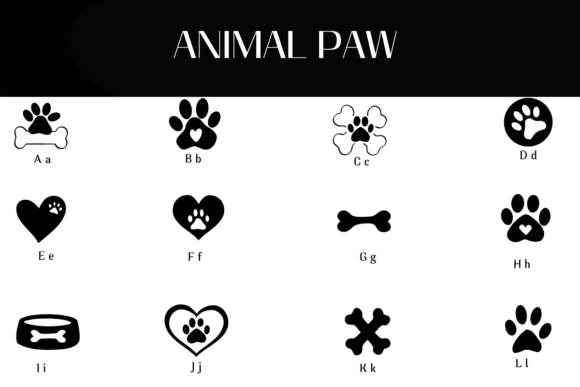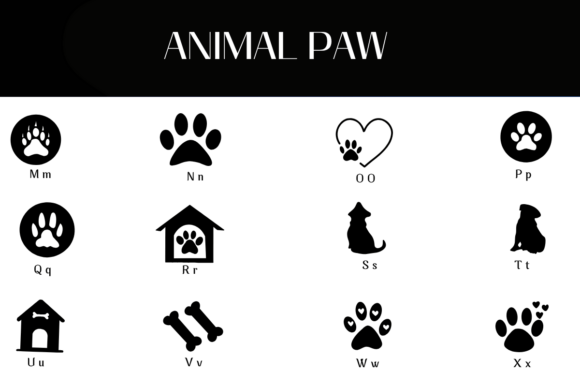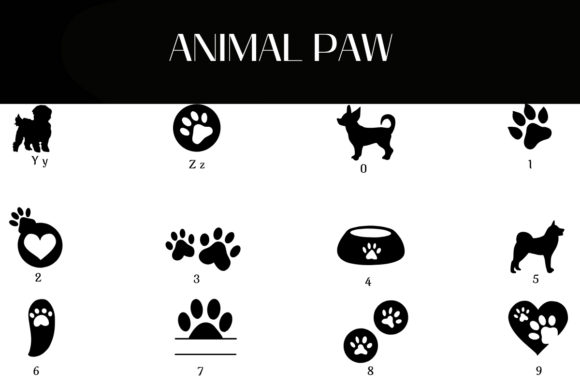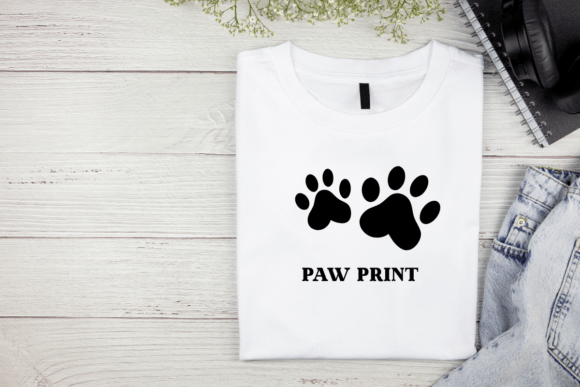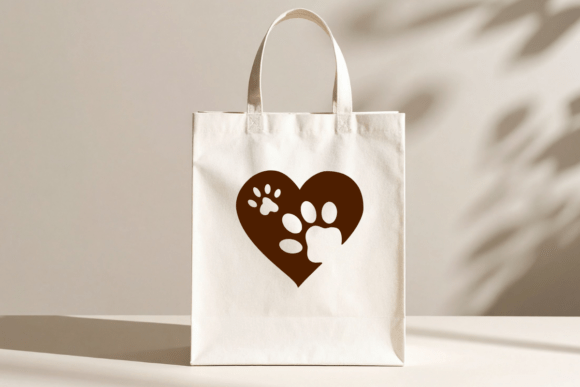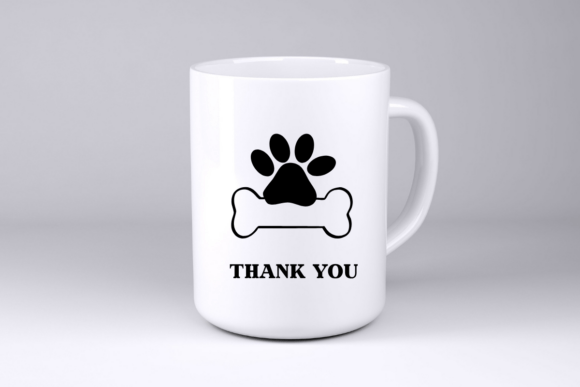
Unleashing Creativity with Animal Paw Font
Have you ever been brainstorming ideas for a project and suddenly, a cute illustration of a cat pops up in your mind? It’s moments like these that spark our creativity and make us want to bring our imagination to life. For designers, it’s not just about having ideas, but also about finding the right tools to make them happen. That’s where the Animal Paw Font comes in – a delightful dingbats font that adds a playful touch to any design.
This charming font is designed to help you add a whimsical element to your work, whether it’s a logo, a greeting card, or a social media post. With its cute animal paw prints, you’ll be able to convey a sense of fun and playfulness that’s sure to capture your audience’s attention. As a designer, you know how valuable it is to have a versatile font that can add a personal touch to your creations. The Animal Paw Font is a must-have for anyone looking to unleash their creativity and bring a smile to their audience’s faces.
Key Features of Animal Paw Font
- Unique Characteristics: The Animal Paw Font features a playful, handwritten style with bold lines and rounded edges, making it perfect for children’s books, pet-related designs, and whimsical illustrations.
Designer Review: Animal Paw Font
As a designer, I’m always on the lookout for unique and engaging fonts to add some personality to my projects. The Animal Paw Font is definitely one of the more interesting fonts I’ve come across. Here’s my honest review.
- The font’s playful and whimsical feel makes it perfect for children’s books, pet-related projects, or any design that needs a lighthearted touch.
- The font’s bold lines and rounded edges give it a fun, hand-drawn feel that’s hard to replicate with more traditional fonts.
- The font may be too playful for more formal or professional projects, where a more serious tone is required.
- The font’s uniqueness may also make it difficult to pair with other fonts, as it can be quite attention-grabbing.
- The font may not be suitable for smaller text sizes, as the bold lines and rounded edges can make it difficult to read.
Overall, I think the Animal Paw Font is a great addition to any designer’s toolkit. While it may have some limitations, its unique personality and high level of customization make it a great choice for the right projects. Just be sure to use it sparingly and in context, as it can be quite overpowering if not used carefully.
Animal Paw Font is perfect for:
- Children’s book illustrations and designs.
- Animal-themed parties and events.
- Wildlife conservation and education materials.
- Fun and playful marketing materials.